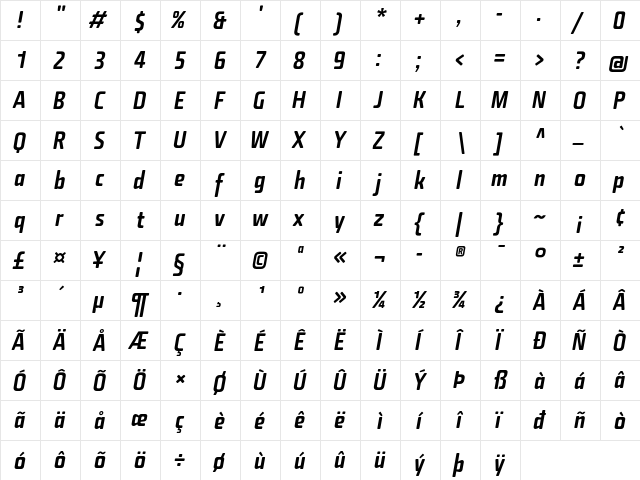
Fishmonger CS Italic
Design Context for Fishmonger CS Typeface
Fishmonger CS offers clean, dependable letterforms without strong stylistic allegiance, making it a practical choice for designers who need flexibility. Its italic angle brings a sense of urgency and motion to the letterforms.
Pro Tip: Try Fishmonger CS for annotation and caption copy alongside an upright companion — the contrast in angle creates a dynamic but ordered typographic system.